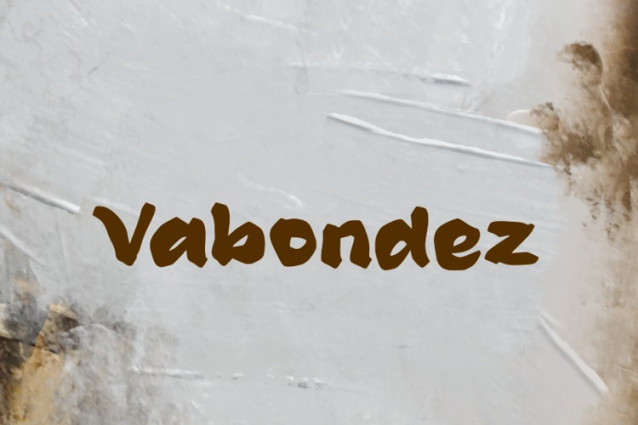
Vabondez Font
Vabondez Font is a chunky, comic, and cartoon display font. With its neat and joyful personality, this font will enhance any project you wish to create!